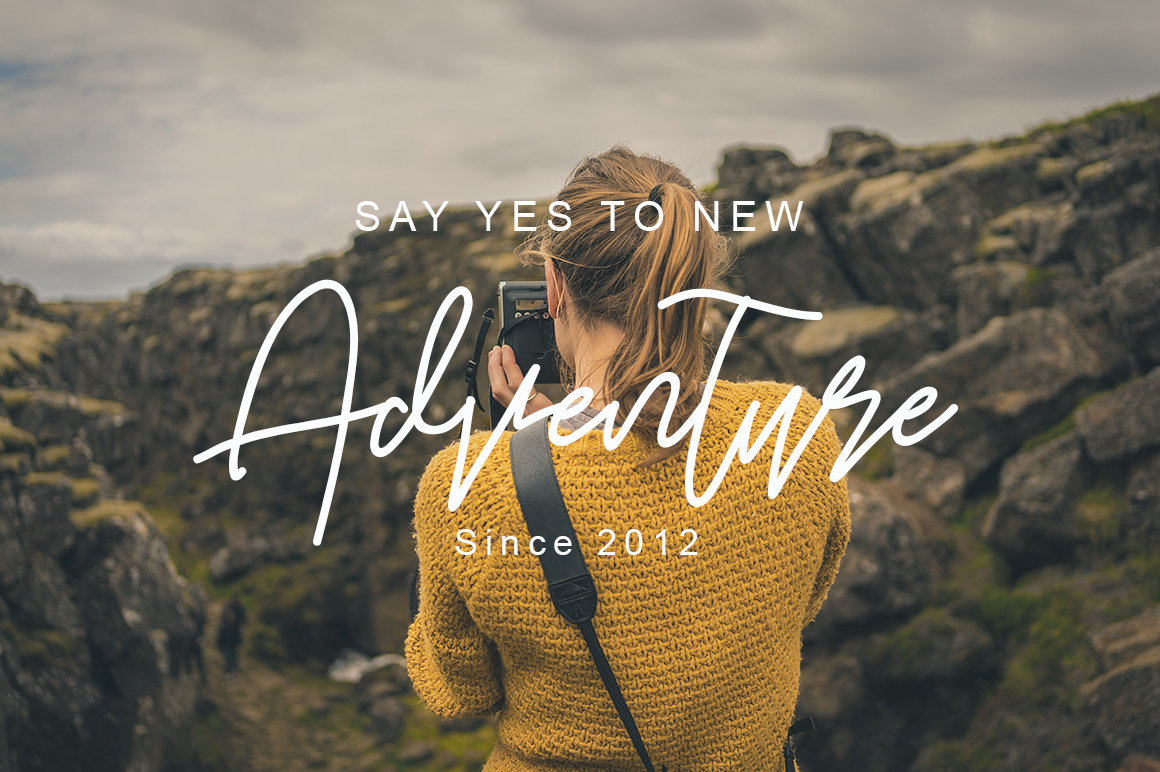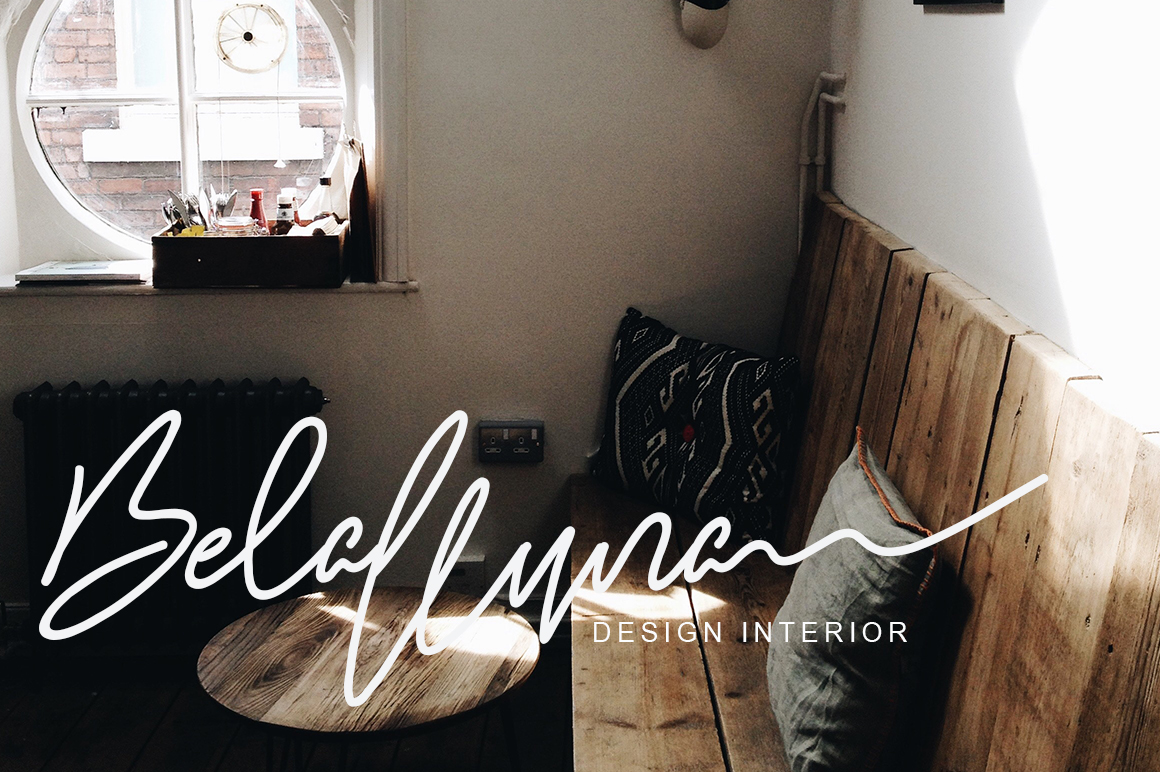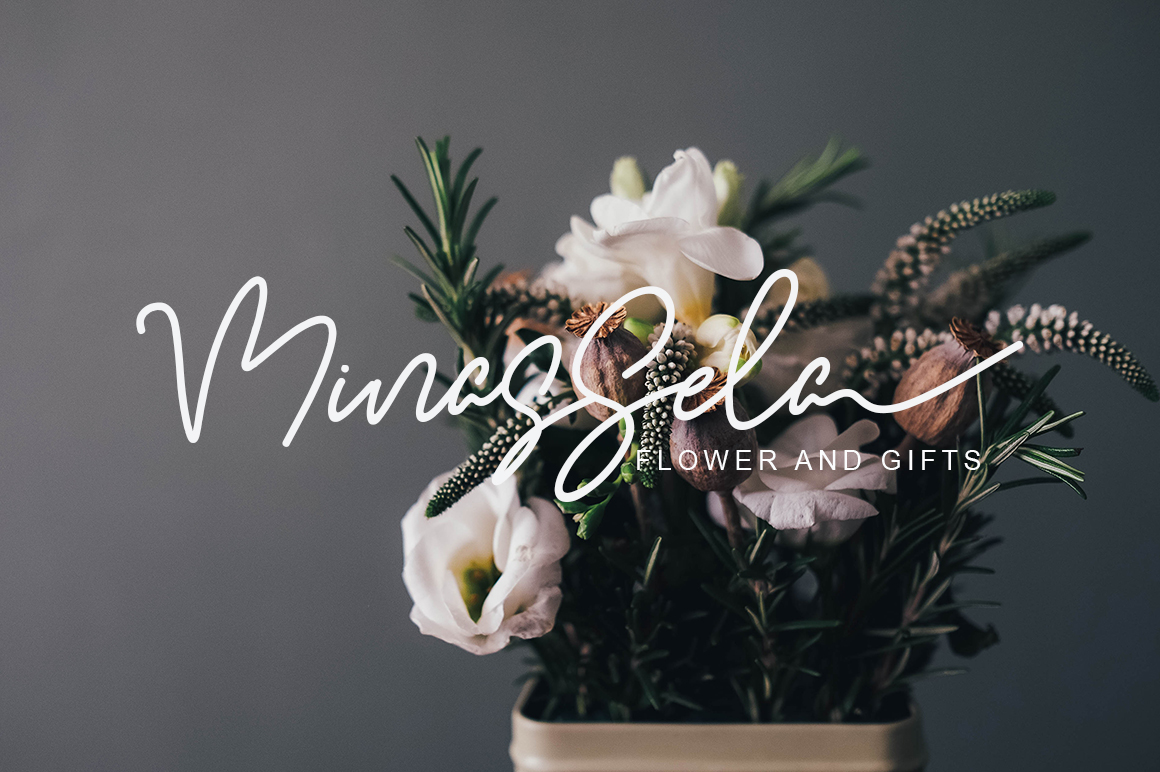
Introduction to Kanittia Font
Have you ever been working on a creative project and wished you had the perfect font to give it that extra oomph? For designers, finding the right font can be the difference between a design that feels complete and one that feels lacking. That’s where the Kanittia Font comes in – a modern script font that’s sure to make your designs stand out.
With its unique, casual style and irregular baseline, the Kanittia Font is a game-changer for designers looking to add a high-quality touch to their projects. Whether you’re working on a design for a brand, a website, or a social media campaign, this font is a valuable resource that’s sure to elevate your work.
Key Features of Kanittia Font
- High-quality design for creative projects: The Kanittia Font is a versatile and stylish typeface perfect for various design needs, from branding to digital art.
- Unique characteristics: The Kanittia Font boasts an elegant and modern design with unique characteristics that set it apart from other fonts in its category.
- Perfect for digital art: The Kanittia Font is ideal for digital art, graphic design, and other creative projects that require a high-quality and unique font.
Honest Review: Kanittia Font
I recently stumbled upon the Kanittia Font, and I’m excited to share my thoughts on this design resource. As a designer, I appreciate high-quality fonts that can elevate a creative project, and Kanittia Font definitely delivers.
- High-quality design: The Kanittia Font has a unique and stylish design that can add a touch of sophistication to any project.
- Limited character set: The Kanittia Font has a limited character set, which may not be suitable for projects that require a wide range of characters.
- No bold or italic options: The font only comes in regular weight, which may not be ideal for projects that require emphasis.